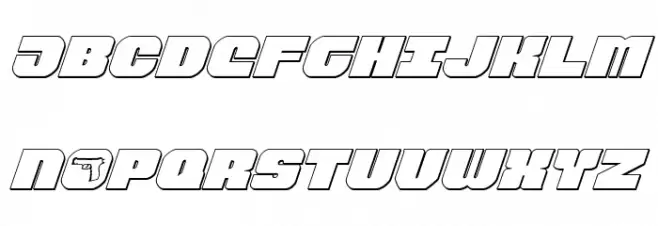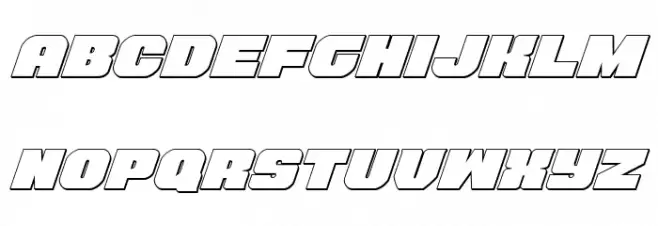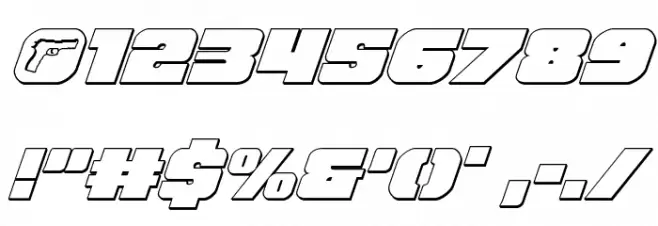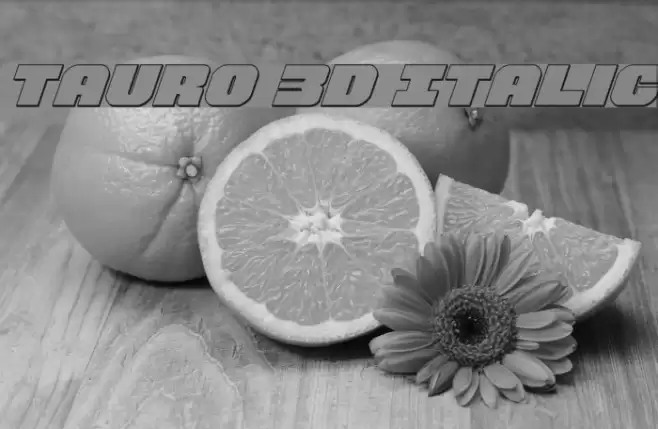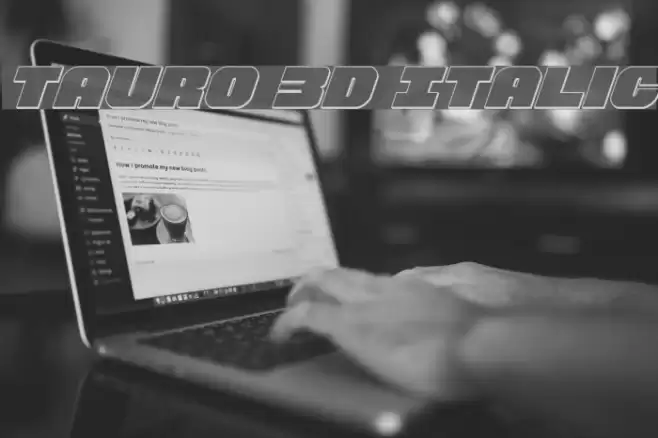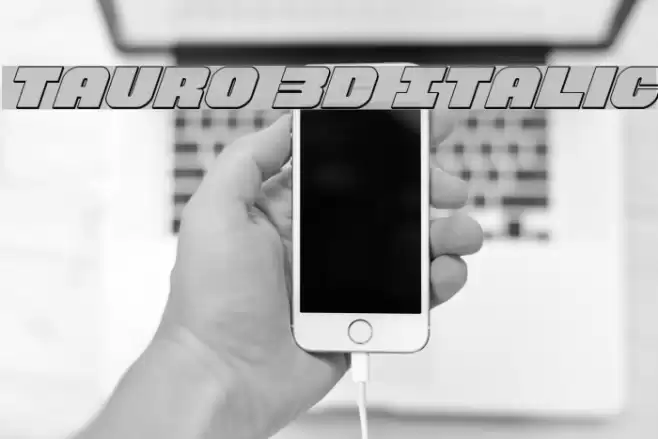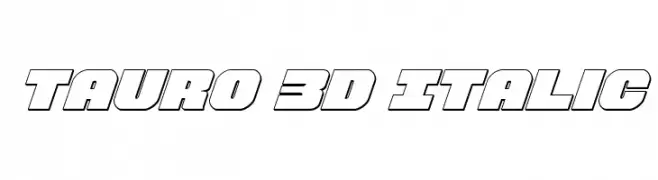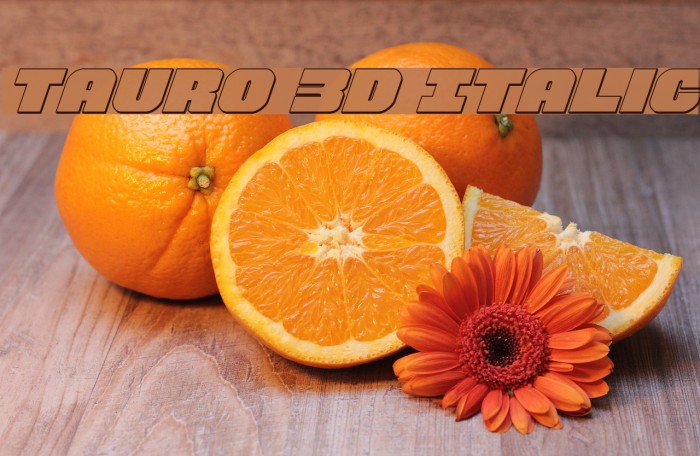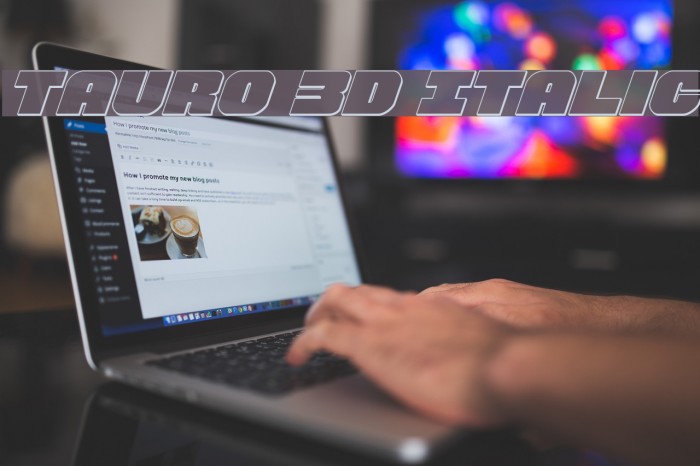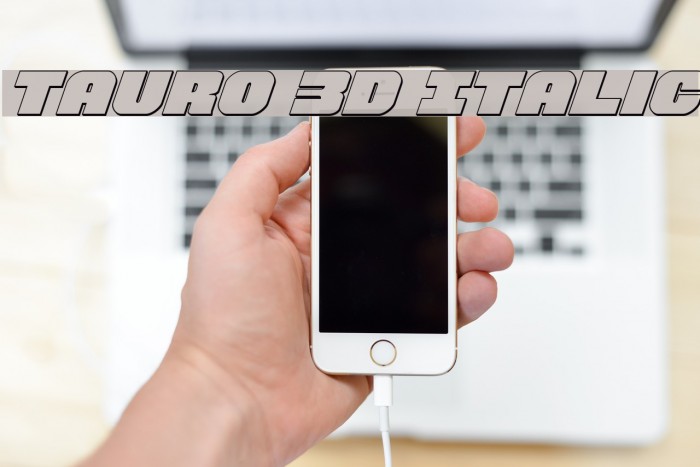
Tauro 3D Italic
This font features a bold, three-dimensional design with a strong italic slant, giving it a dynamic and futuristic appearance. The characters are outlined, adding depth and a sense of movement. The geometric shapes and sharp angles contribute to its modern and edgy style. Each letter and number is distinct, with consistent spacing that maintains readability despite the complex design. The font's unique style makes it suitable for eye-catching designs where impact is essential.
A bold, 3D italic font with a futuristic and dynamic style.
- Proposed Projects: Ideal for video game titles, sci-fi movie posters, tech branding, and futuristic event flyers.
- Contrast: High
- Overall Style: Futuristic, Dynamic
- Use Case: Headlines, Logos, Posters